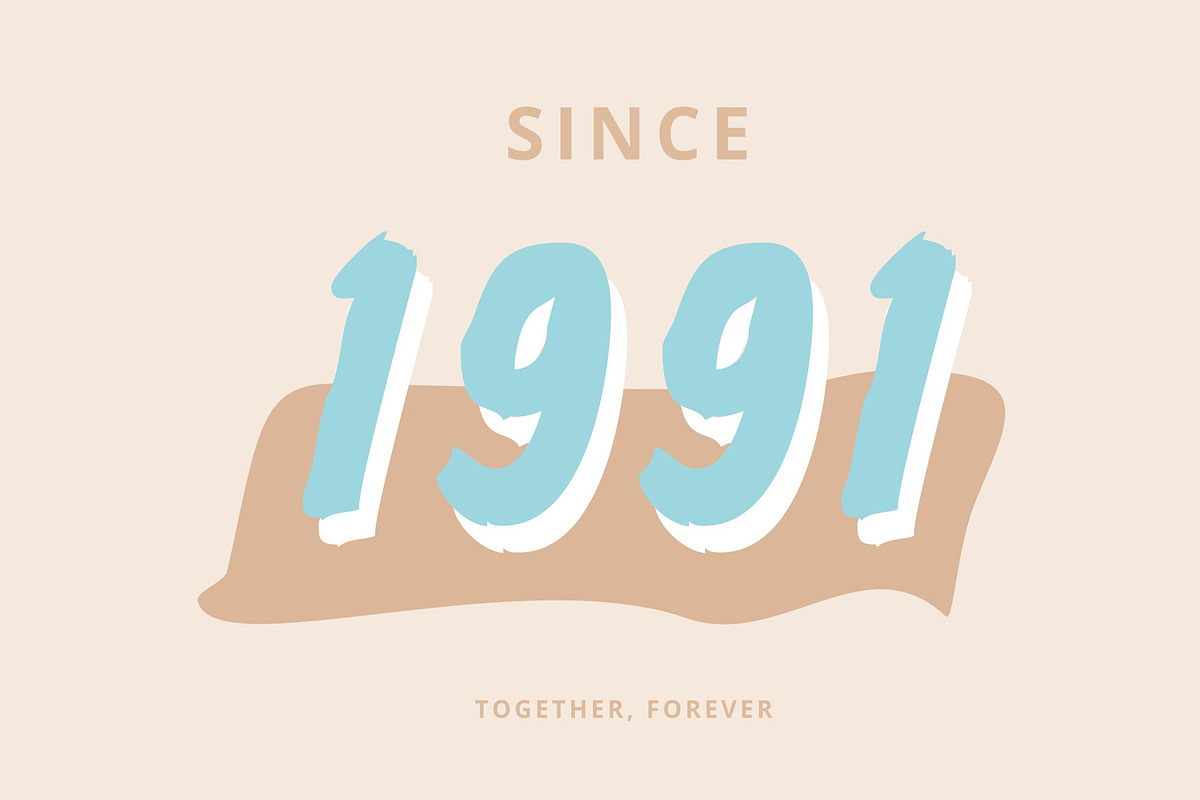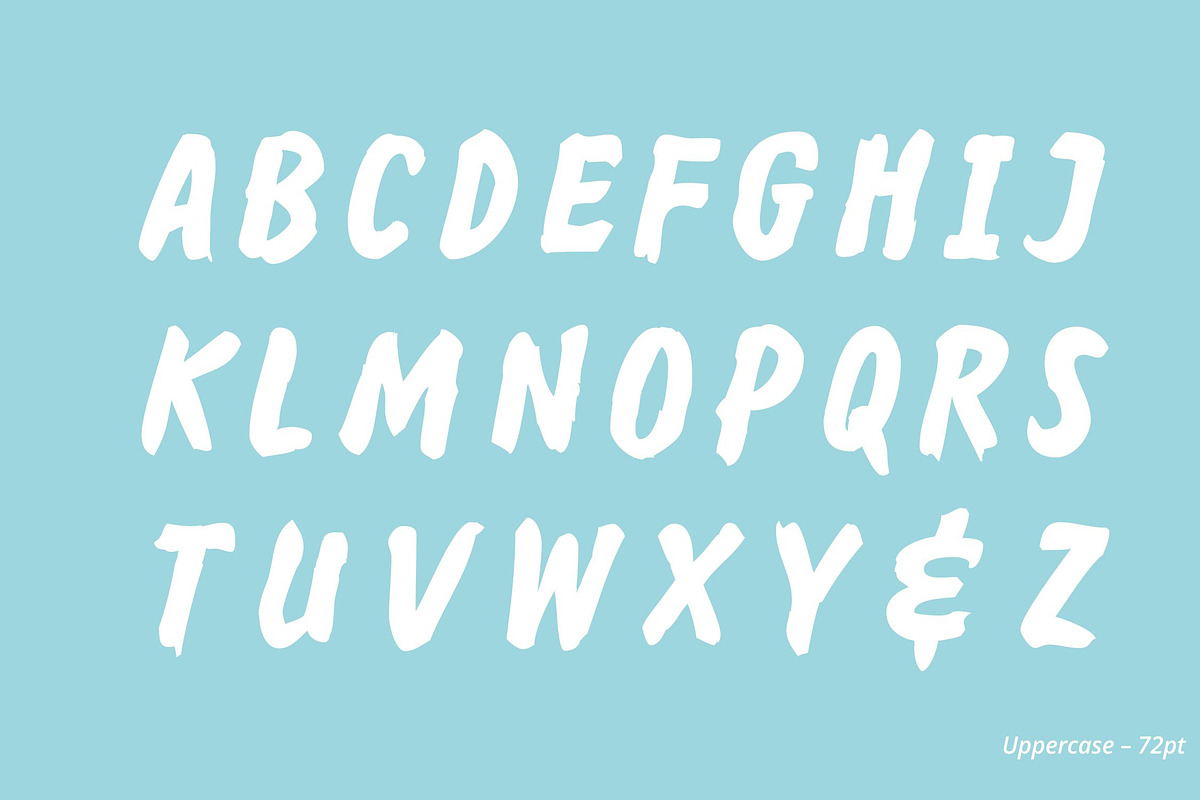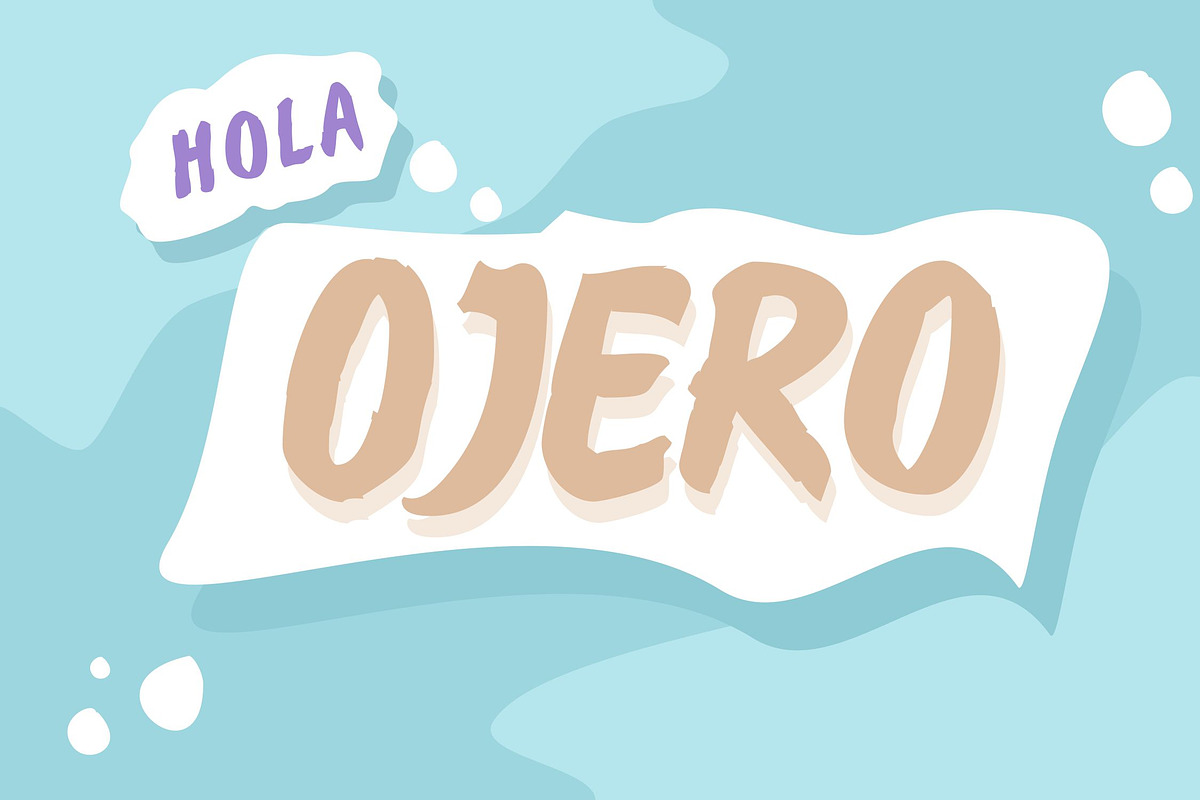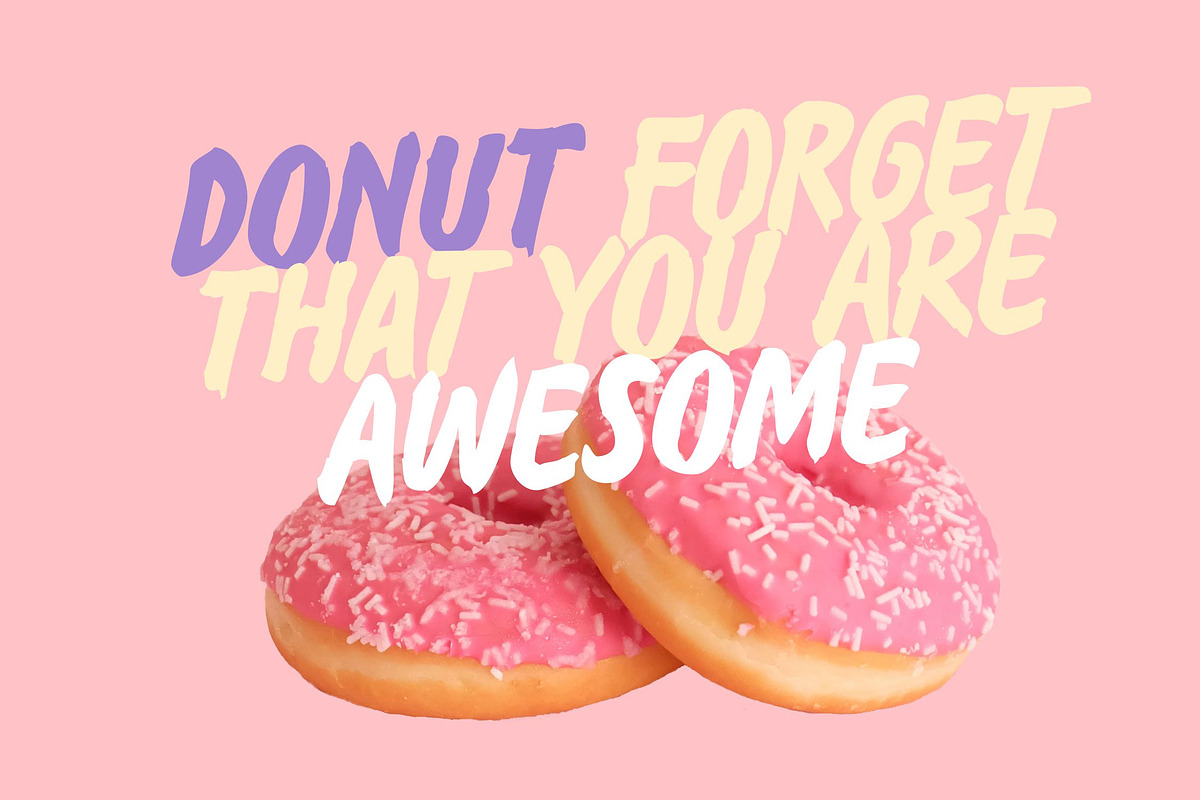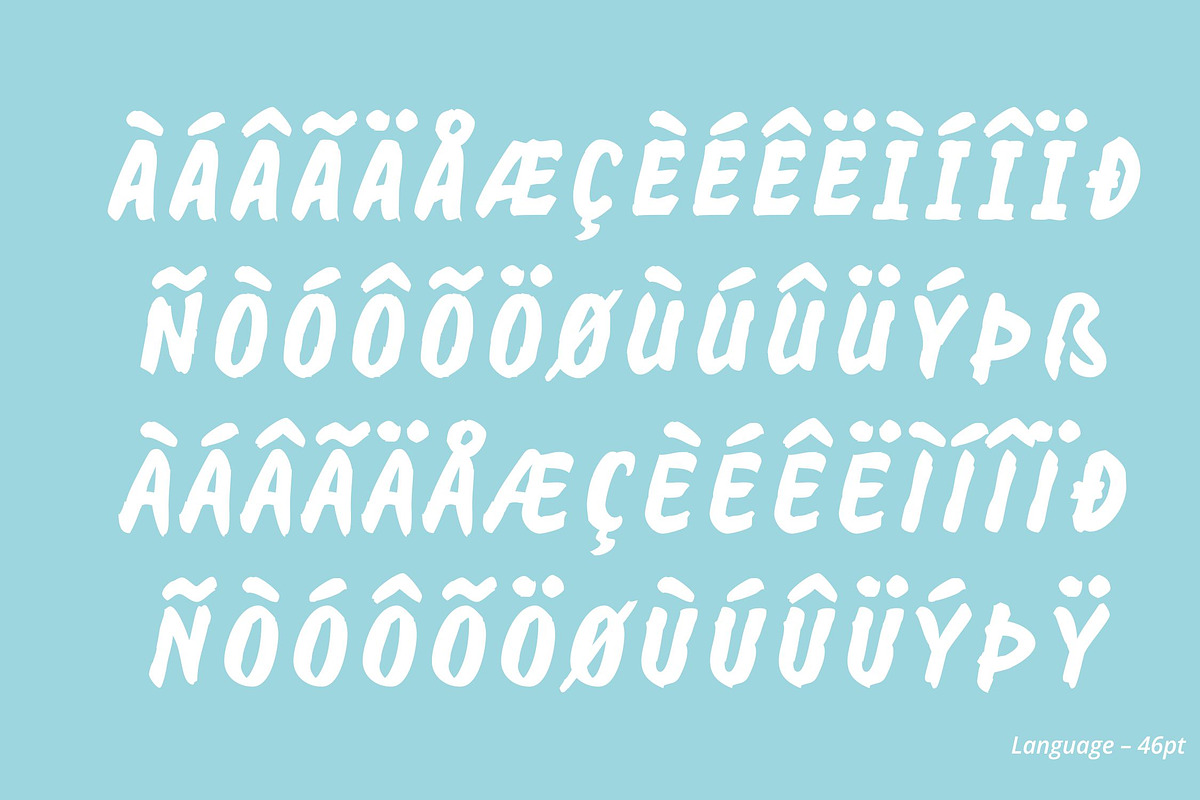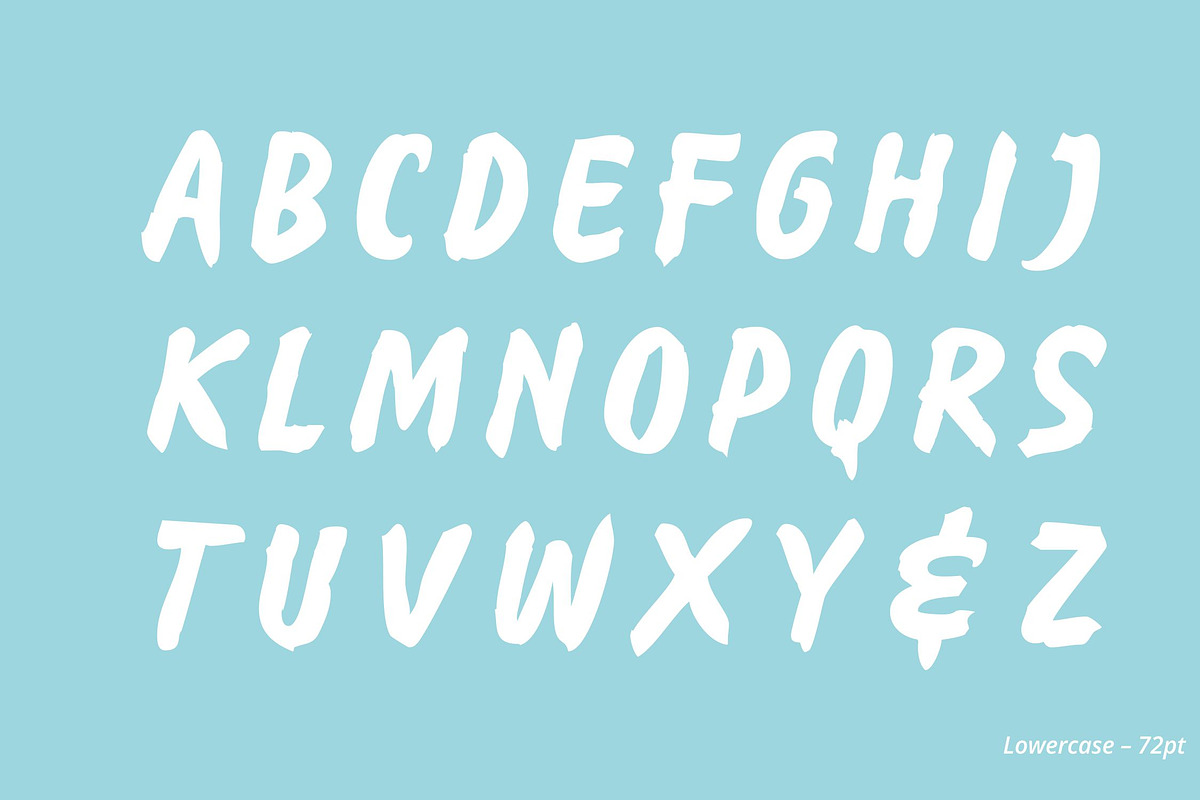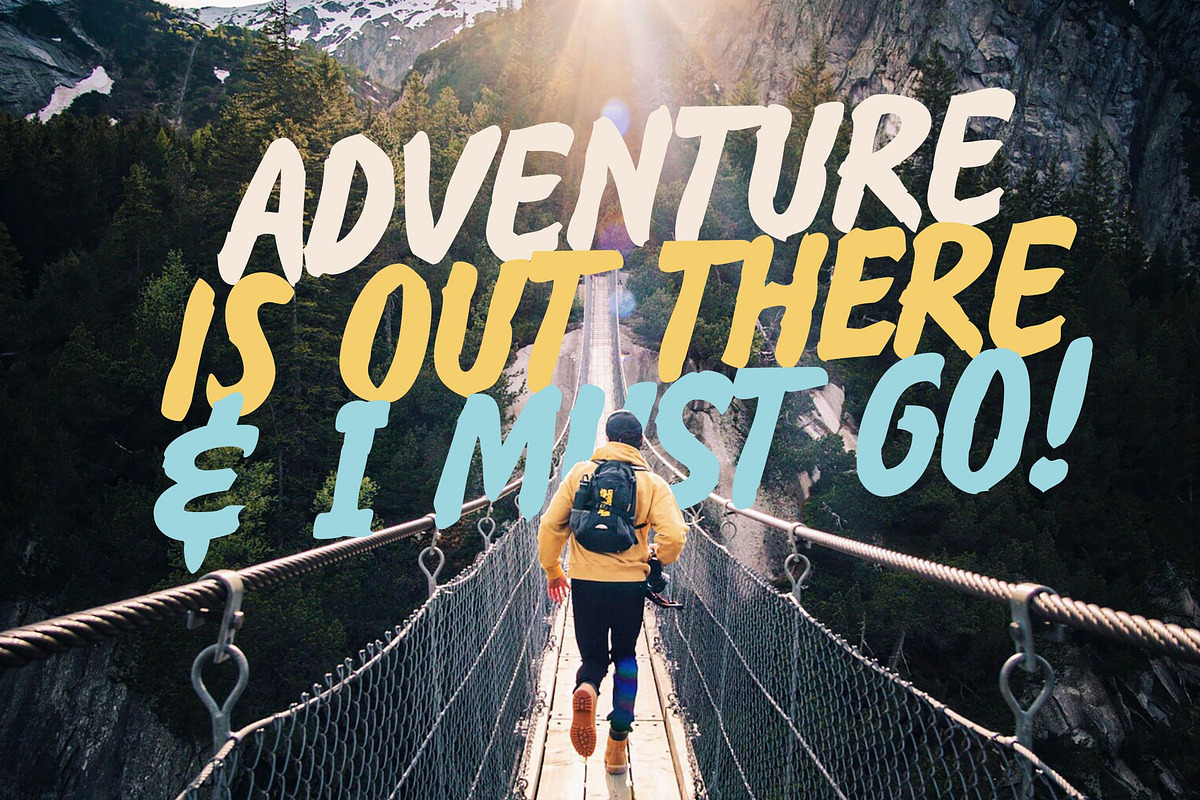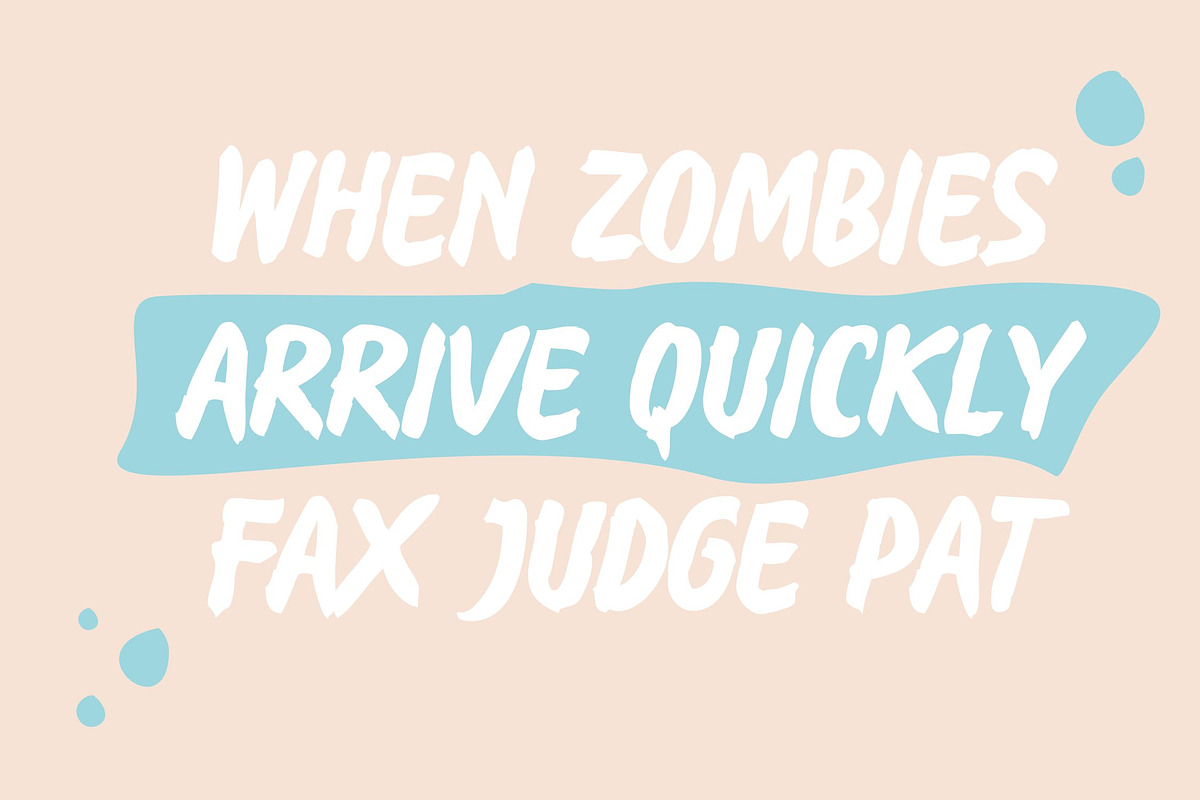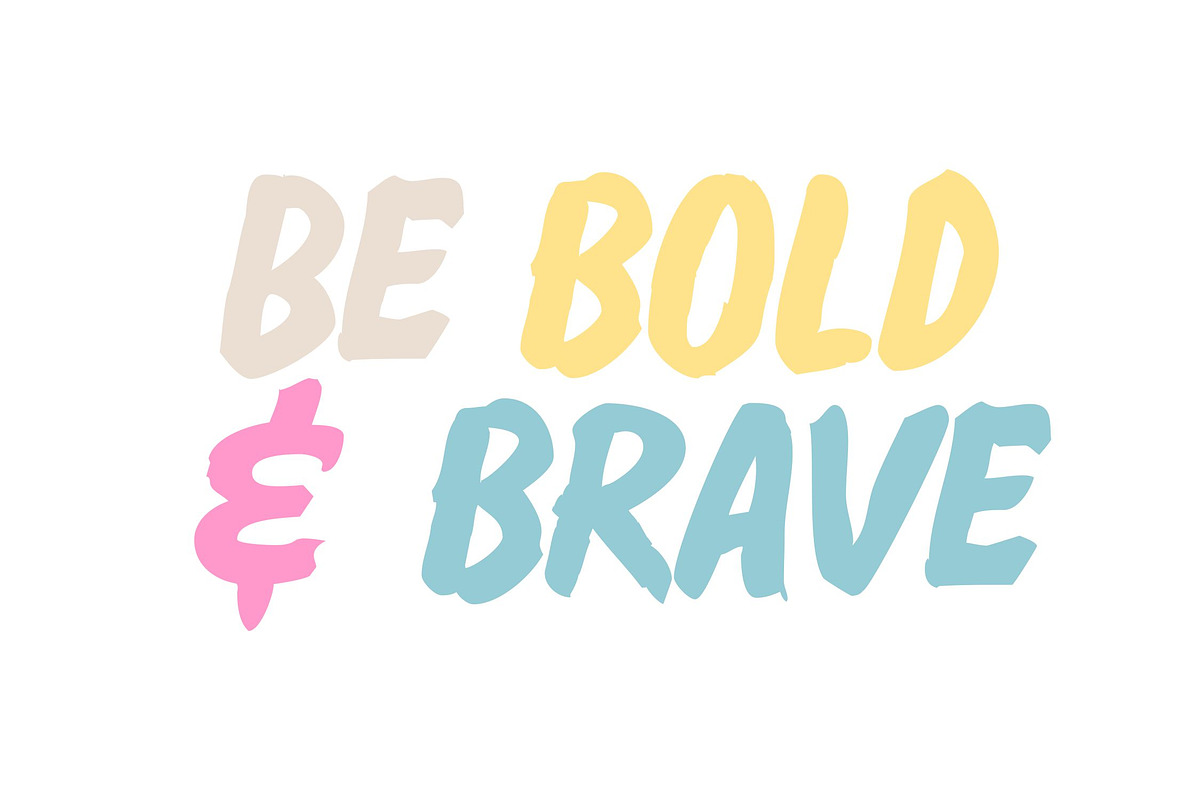
Ojero - Retro Brush Font
Ojero is a dynamic and expressive brush font that's perfect for creating bold and eye-catching designs. With its bold and clear style, it's perfect for posters, headlines, titles, t-shirts, logos, and any other design that needs to make an impact. With over 200 glyphs and multilanguage support, it's highly customizable and versatile, making it a great choice for designers looking to create unique and distinctive projects.
Not only is Ojero a visually striking font, but it's also designed with readability in mind. The bold and clear style ensures that your text is easy to read, even at small sizes, while the expressive brush strokes add an artistic touch that will make your designs stand out. Whether you're designing for print or web, Ojero is the perfect choice to add a unique and eye-catching touch to your designs.